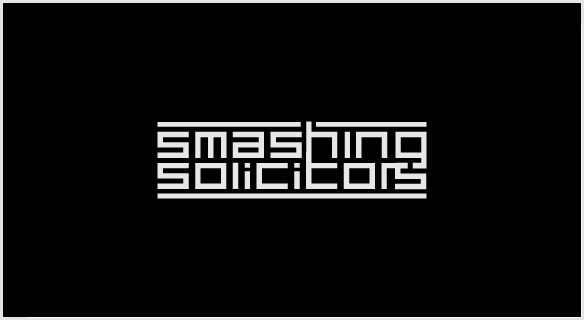
They say a picture is worth a thousand words, but a logo is worth an entire novel.
The easiest way to recognize a company and distinguish it from others is by its logo. The whole idea of a logo design is to communicate with the viewer and create something that is memorable and it resonates. Always when you design a logo it needs to define who you are as a practice.
Here are 3 ways to design and achieve a great logo that will stand the test of time.
1. Simple
The logo needs to be easily identifiable at a glance. Allow for changes of size and colour. Great logos deliver something unexpected and are unique without being complicated. On the other side, bad logos don't deliver anything and are complicated in terms of structure and message.
Dropbox is a sample of simple logo
Dropbox is a modern workspace designed to reduce busywork-so you can focus on the things that matter. For example the logo of Dropbox is simple and meaningful.
2. Appropriate‍
The logo should be appropriate for the intended audience. When designing a Logo ask yourself if that font is truly appropriate for the business you’re designing for? For example, a great modern typographic font that you just love is not likely suited to a serious business such as a lawyer’s office like the example below:
Never impose your own personality onto a client’s work. (from smashmagazine)
3. Memorable & Unique
An effective logo should be memorable. While designing a unique Logo, keep it simple and appropriate to the nature of the business. A logo should be memorable, and one of the best ways to make it memorable is to keep things simple, just like Apple for example.
Apple in Beijing, China